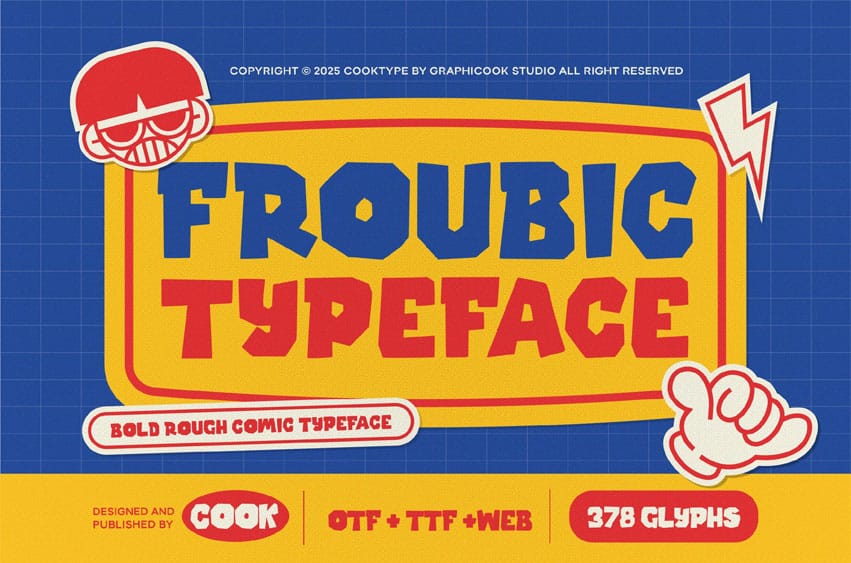
Froubic Font is a rough, bold font with an expressive style and tons of character, making it perfect for playful, funny, and attention-grabbing designs such as kid-friendly designs, fun posters, game titles, and comic-inspired projects.
It is perfect for headlines, logotypes, magazines, packaging, quotes, movies, games, cover albums, book covers, and flyers. It’s a perfect solution for creating eye-catching designs that stand out in any context.